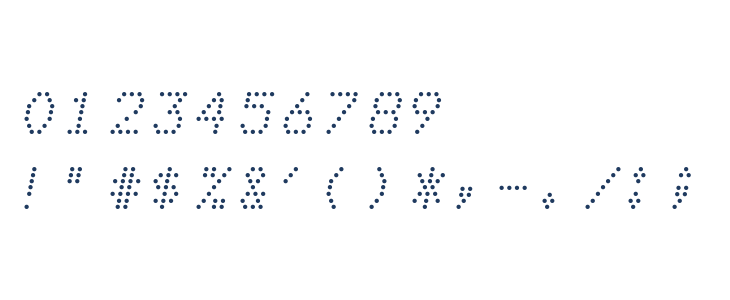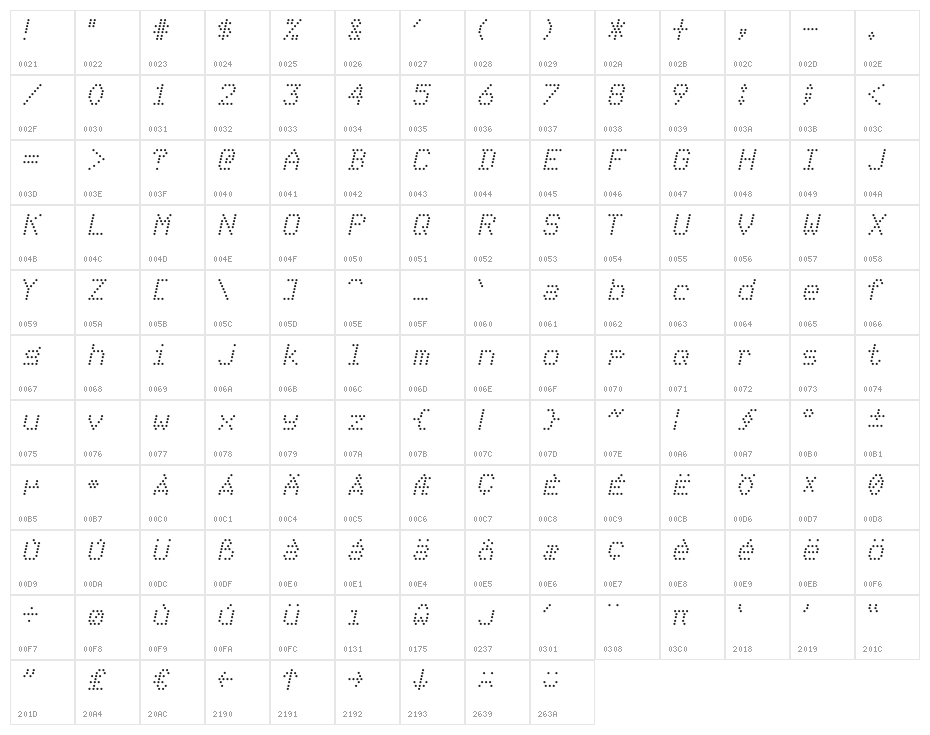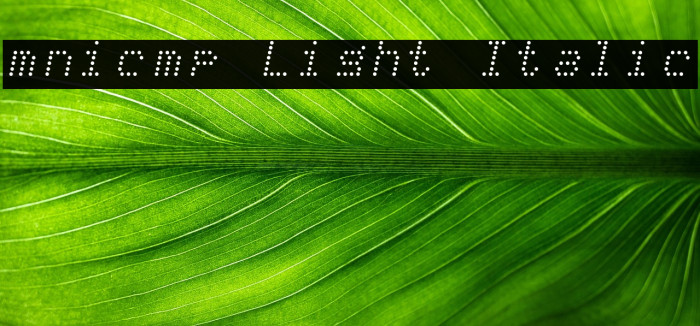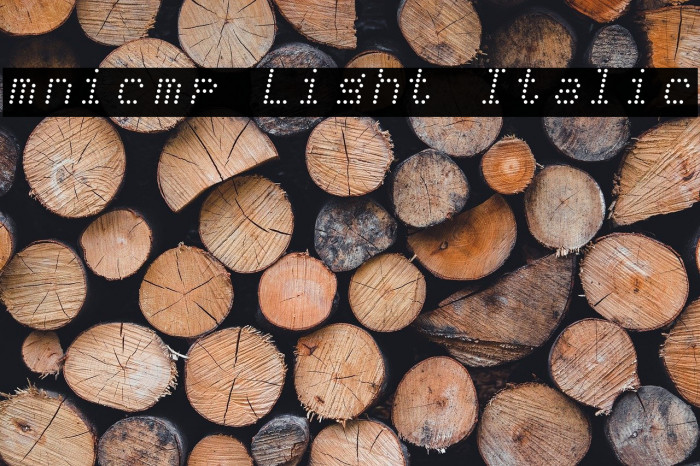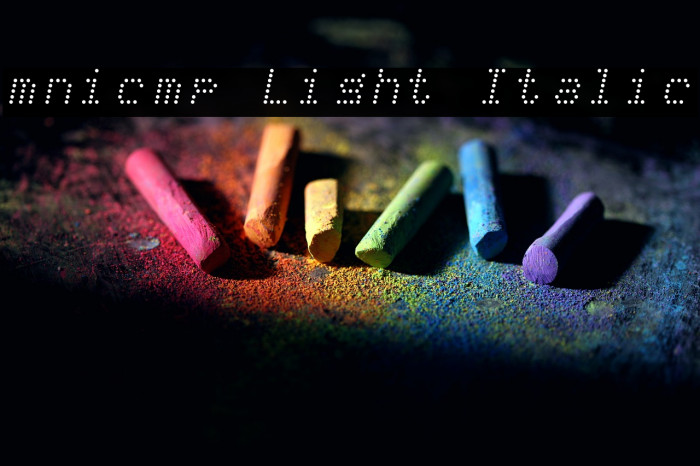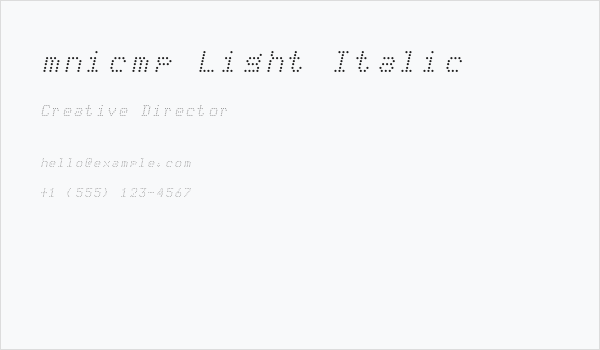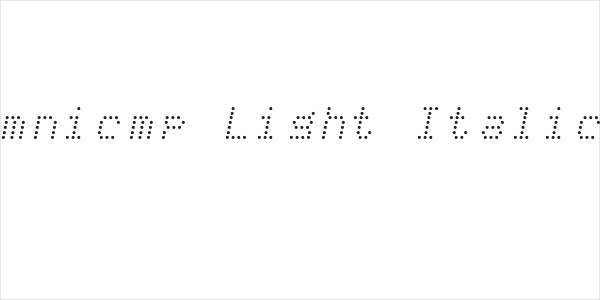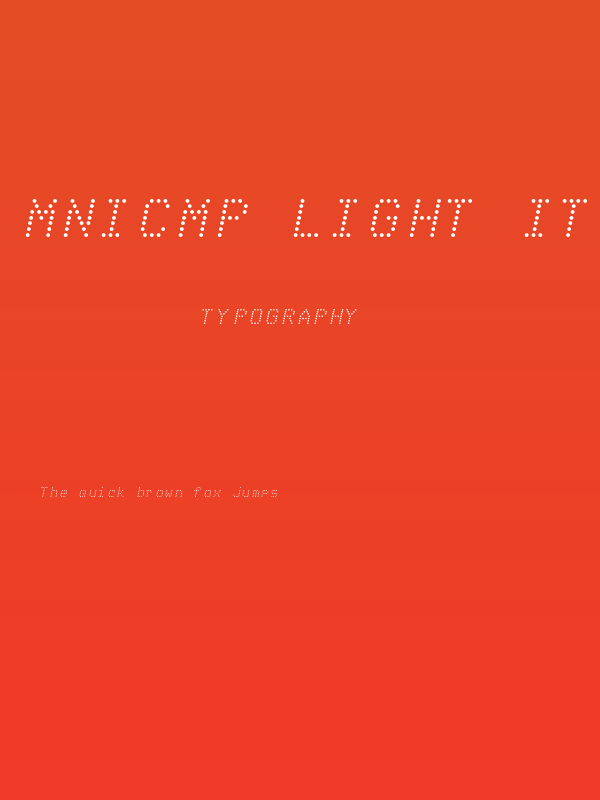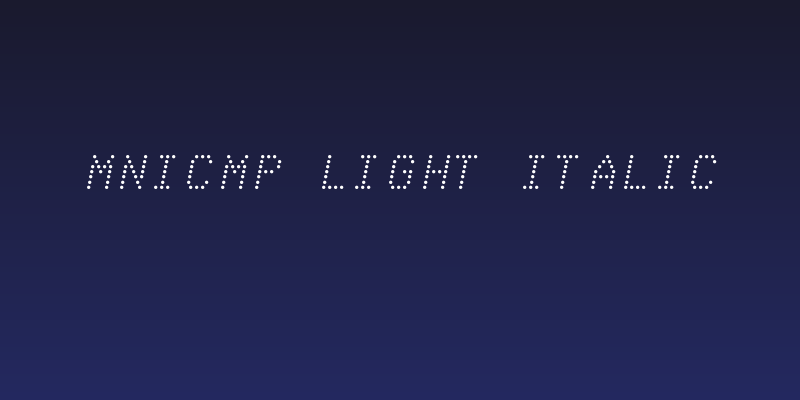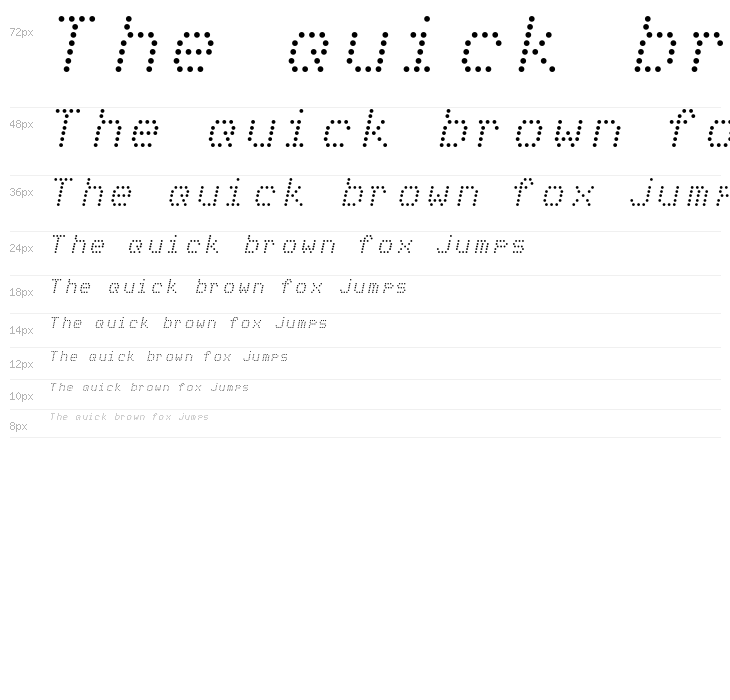
mnicmp Light Italic Font
mnicmp Light Italic Description
This font features a unique dotted style that mimics the appearance of digital displays or dot matrix printers. Each character is composed of a series of evenly spaced dots, creating a distinct and modern look. The font is italicized, giving it a dynamic and slightly slanted appearance. This style is consistent across uppercase and lowercase letters, numbers, and special characters. The dotted design provides a playful yet technical aesthetic, making it suitable for creative and tech-oriented projects.
| Use Case | Logos, Headlines, Digital displays |
| Proposed Projects | Ideal for digital art, tech branding, futuristic designs, and educational materials. |